If you’re inspired by the bold, energetic style of the Bright Live Retro Font, you already know the power a great retro typeface can bring to a design. Retro fonts capture the nostalgia, warmth, and visual boldness of the 60s, 70s, and 80s — making them perfect for everything from vintage apparel and poster art to branding, stickers, and social media graphics. We dug deep into the Creative Fabrica library to bring you the 15 best retro fonts available right now, each handpicked for its unique character, versatiwlity, and creative potential. Whether you love groovy curves, chunky block letters, or vintage western flair, there’s something here for every designer.
1. Stay Chunky Font
Stay Chunky is a playful retro groovy font inspired by 70s letterforms. Its thick curves, smooth edges, and fun swashes make it perfect for eye-catching quotes, shirts, stickers, posters, branding, and more. This font includes uppercase, lowercase, numbers, punctuation, and unique stylistic alternates to help you create standout artwork with a vintage flair. Perfect for designers who love bold, cheerful, and aesthetic retro styles.
2. Back to Vintage Font
Back to Vintage is a vintage-style retro font inspired by the retro typography of the 60s, 70s, and 80s. Anything written in this font is instantly recognizable and will grab attention. It has a unique shape where every corner is softer and more rounded. Use this display font to add a special retro touch to any design idea you can think of.
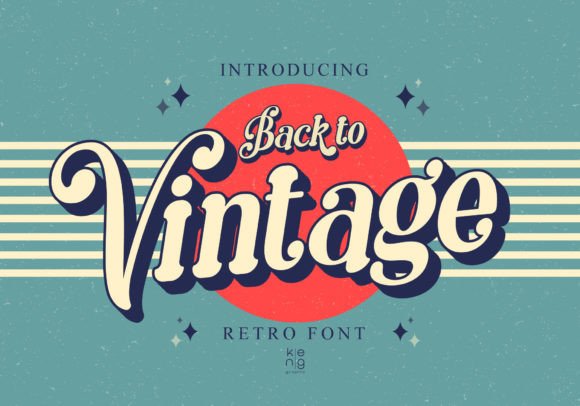
3. Stay Funky Font
Stay Funky Font is a bold and playful groovy font with a true retro vibe. This set includes 3 fun styles — Regular, Outline, and Shadow — giving you flexibility to create eye-catching designs. With its curvy letters and bubbly shapes, this vintage font brings back the colorful hippie era in a modern way. Perfect for Cricut and Silhouette projects, T-shirts, posters, stickers, logos, quotes, and social media graphics.
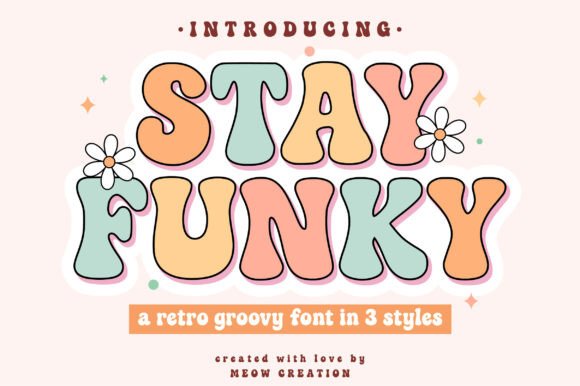
4. Thankful Font
Thankful is a bold, chunky retro display typeface that radiates warmth and holiday nostalgia. Its massive, blocky structure with soft curves and playful ligatures is perfect for Christmas branding, Thanksgiving festivals, vintage apparel, and high-impact event posters. This unique font delivers a fun, old-school, and memorable aesthetic, making it the ideal display choice for all your seasonal, merchandise, and 70s-inspired design projects.
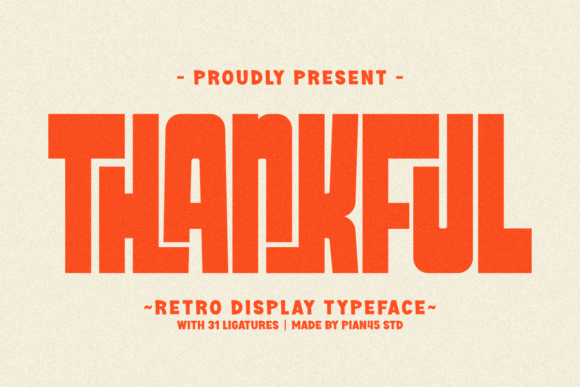
5. Groovy Chunky Font
Groovy Chunky is a bold and playful display font with soft rounded shapes and a cheerful retro feel. Its chunky letterforms and smooth curves create a friendly and eye-catching look that instantly adds personality to any design. This font is carefully crafted to stay clean, balanced, and easy to read, even at smaller sizes. Whether you’re designing for digital or print, Groovy Chunky brings a fun, modern, and joyful touch to your creative projects.
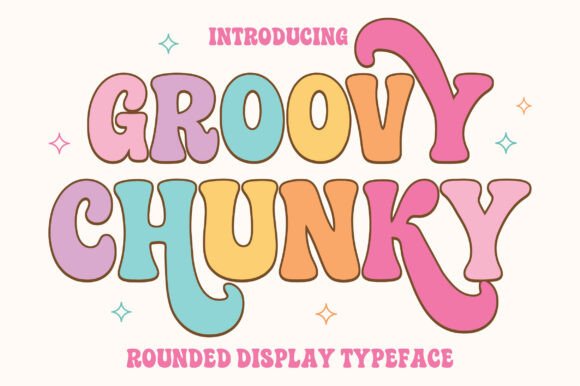
6. Cowboy Howdy Font
Immerse yourself in the rustic charm of Cowboy Howdy, an exclusive handcrafted retro font meticulously designed to breathe life into your creative projects. Its unique alternate feature seamlessly fuses style with versatility. Ideal for crafting inspiring quotes, fashioning statement-making T-shirts, or designing unforgettable tote bags, Cowboy Howdy leaves an indelible mark. Its unique flair also excels in branding, greeting cards, and custom merchandise.
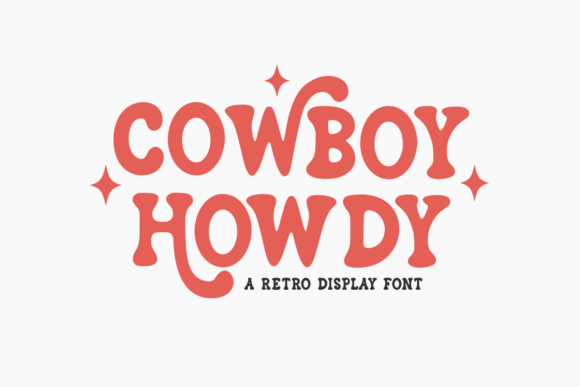
7. Rabbit Hole Font
Immerse yourself in the playful allure of Rabbit Hole, a bold display font that skillfully combines quirky charm with a lively retro vibe. Its intentional design pops with exuberance, brilliantly complementing a range of projects aimed at children and creative branding endeavors. Rabbit Hole’s hearty, organic structure dances with a vivacious rhythm, exuding an inviting and amusing aura — making it a standout choice for logos, posters, and apparel.
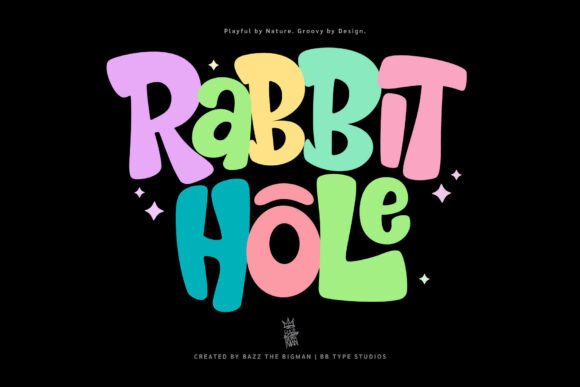
8. Varsity Spirit Font
Varsity Spirit is a bold varsity-style font perfect for college alphabet projects, monogram SVGs, and sports font designs. It includes OTF, TTF, SVG, PNG, EPS, and PDF files. Ideal for Cricut projects, school spirit designs, jerseys, and athletic themes. This varsity typeface is great for cutting machines, graphic design, team logos, and custom DIY projects, with compatibility across Adobe Illustrator, Photoshop, Canva, and more.
9. Western Bullhead Font
Western Bullhead is your go-to choice for a dramatic blend of retro and western flair. With its distinct vintage aesthetics, this display font magically breathes life into T-shirt graphics, powerful quotes, striking logos, and intricate laser cuts. It’s an absolute standout on signs, apparel design, and print projects, crafting an antique charisma for labels and adding character to coffee mugs — effortlessly infusing any design with a nostalgic vibe.
Retro fonts bring timeless character and visual energy to any design project. Whether you’re drawn to the groovy curves of Stay Chunky and Groovy Chunky, the bold western appeal of Cowboy Howdy and Western Bullhead, or the refined vintage elegance of Old Vintage Victorian III and Kai Love, this list has exactly what you need to create designs that stand out and tell a story. All 15 fonts are available through Creative Fabrica — which gives you unlimited access to over 6 million assets including fonts, graphics, SVGs, and more. Bookmark this page and come back whenever you need fresh retro font inspiration for your next project!